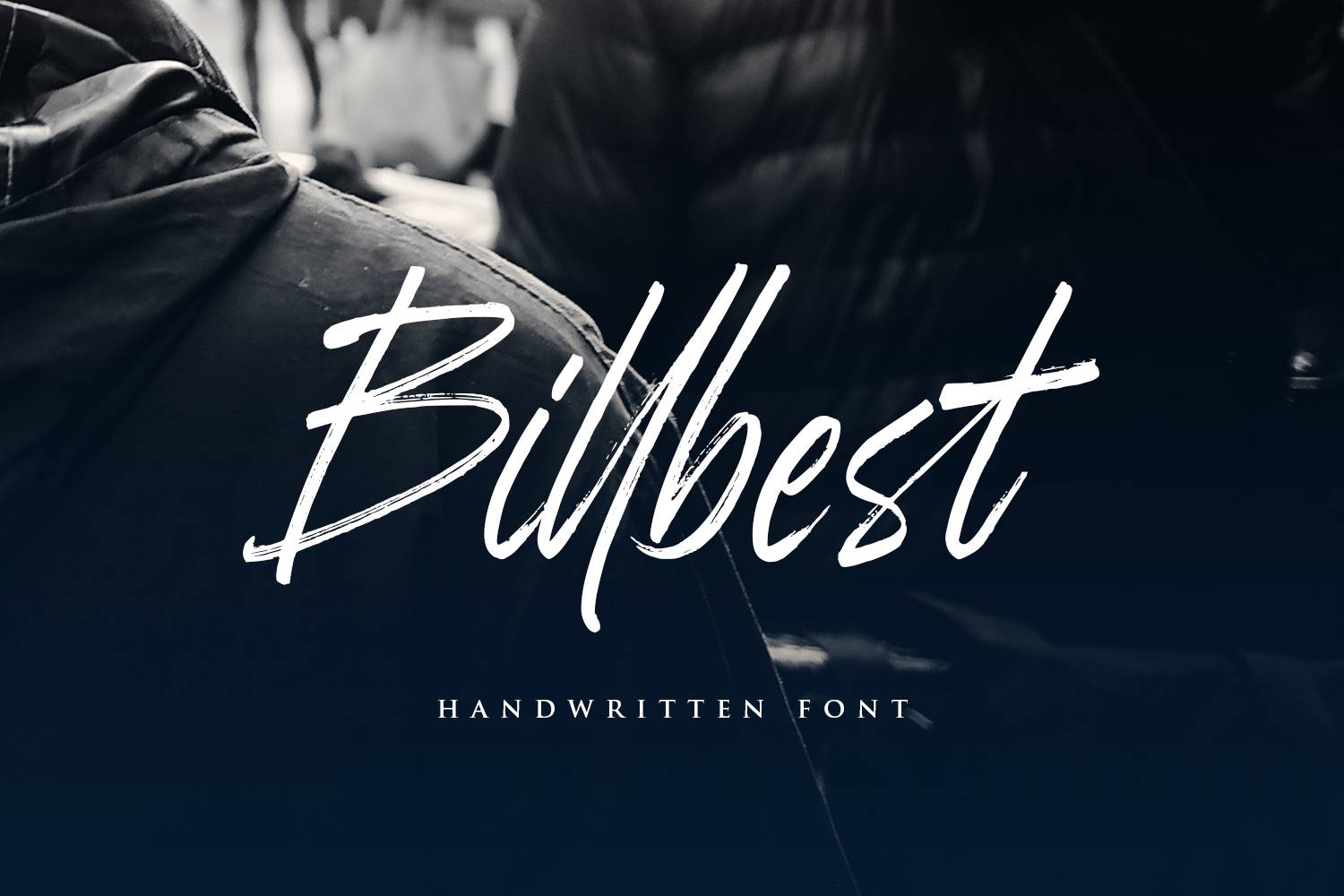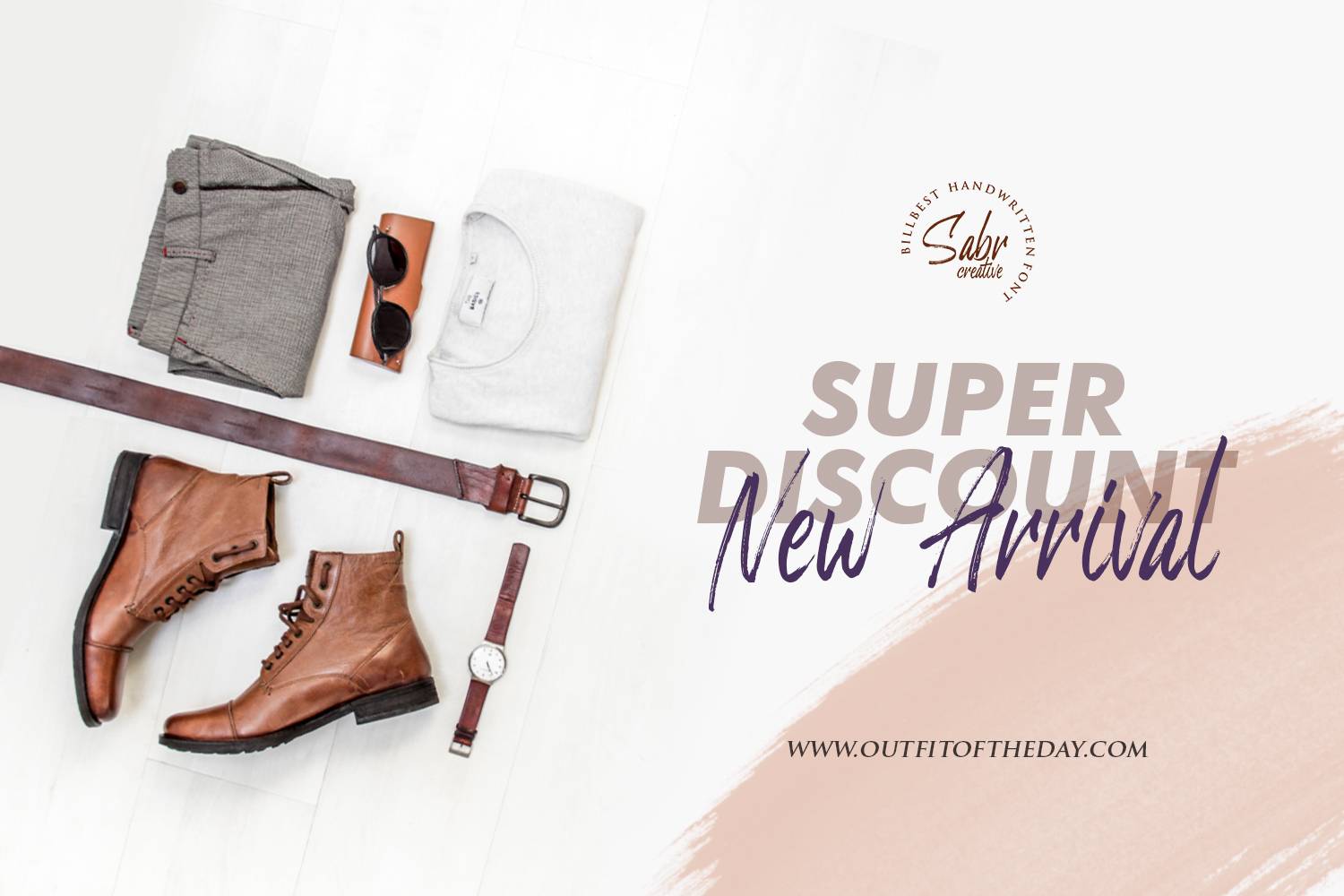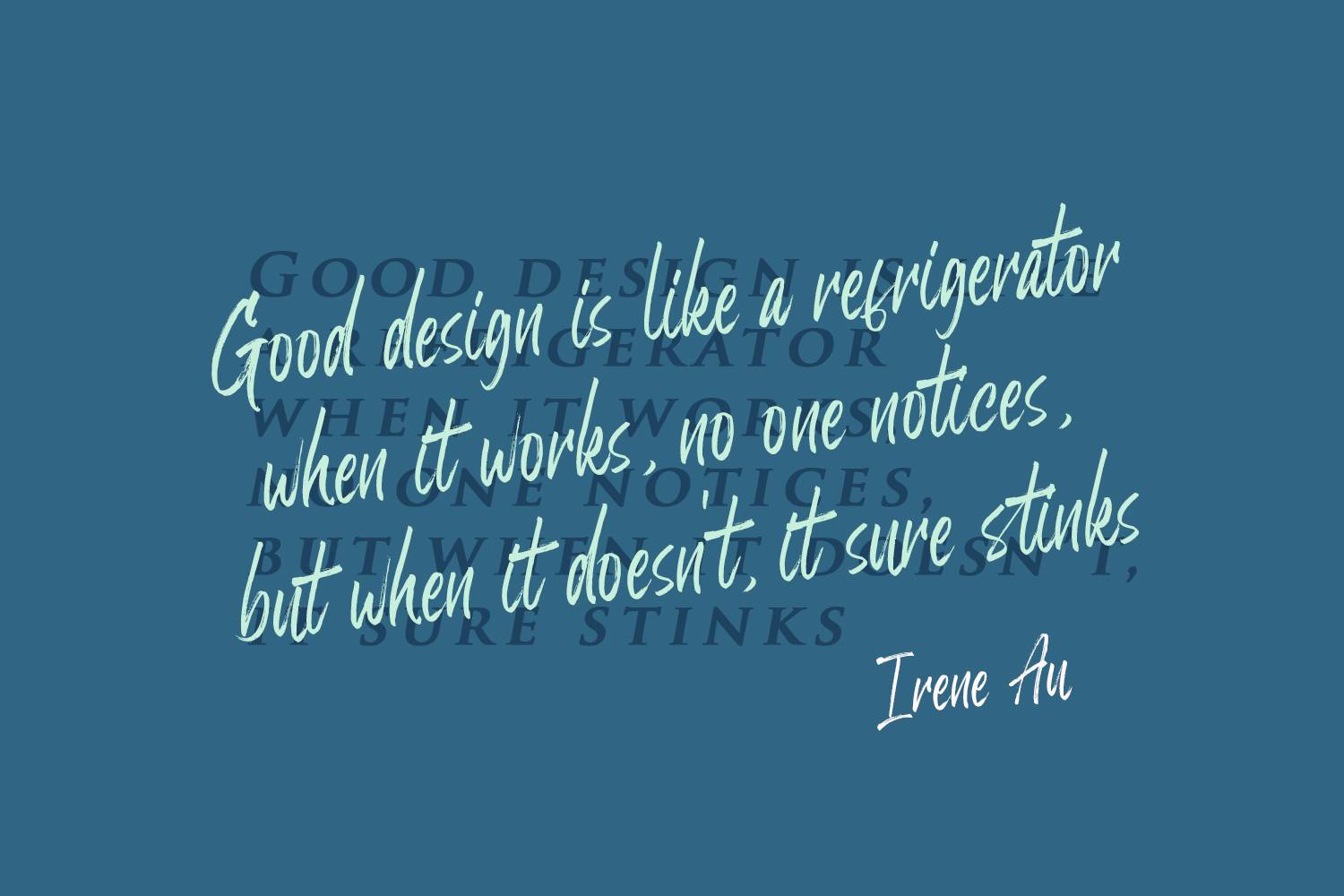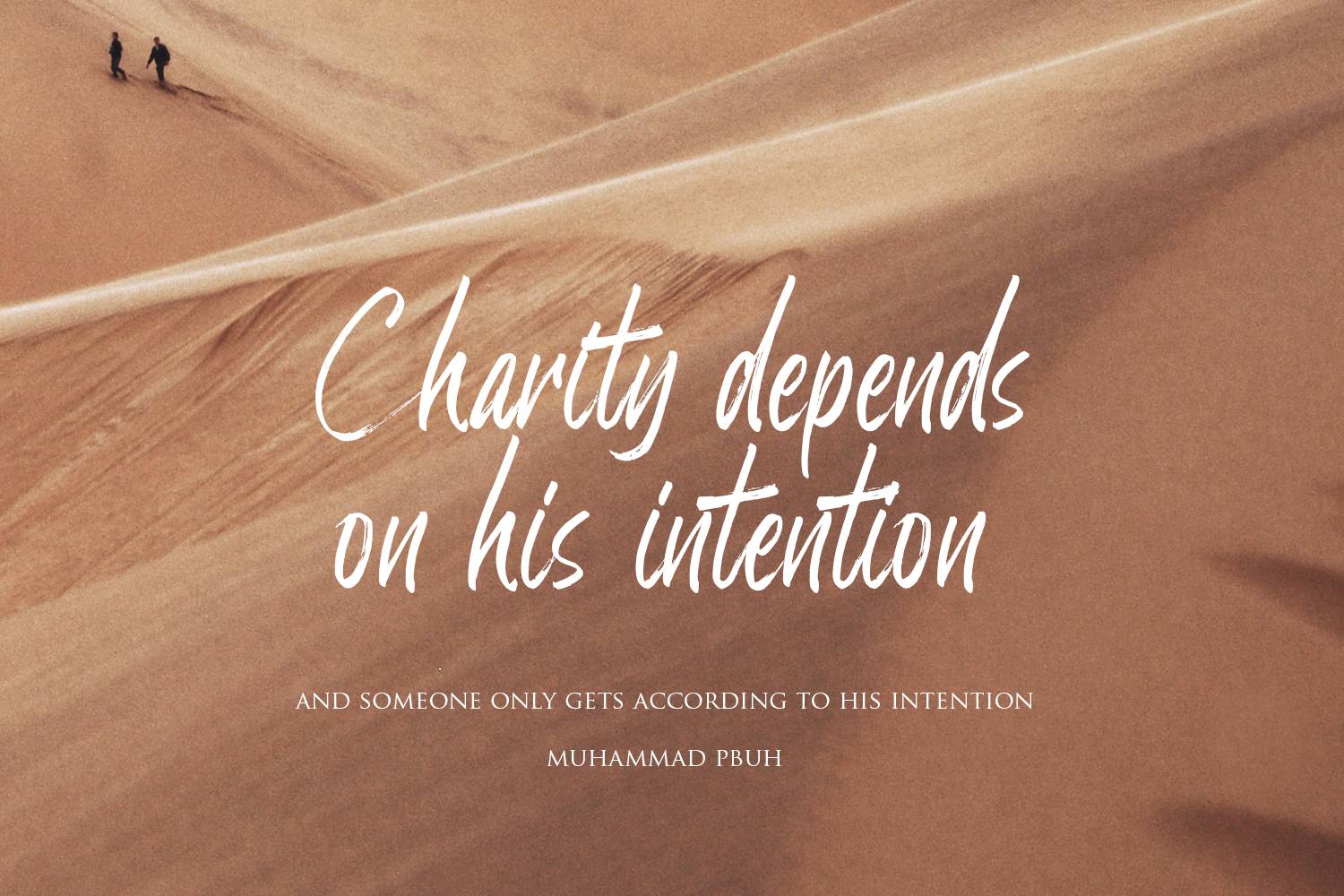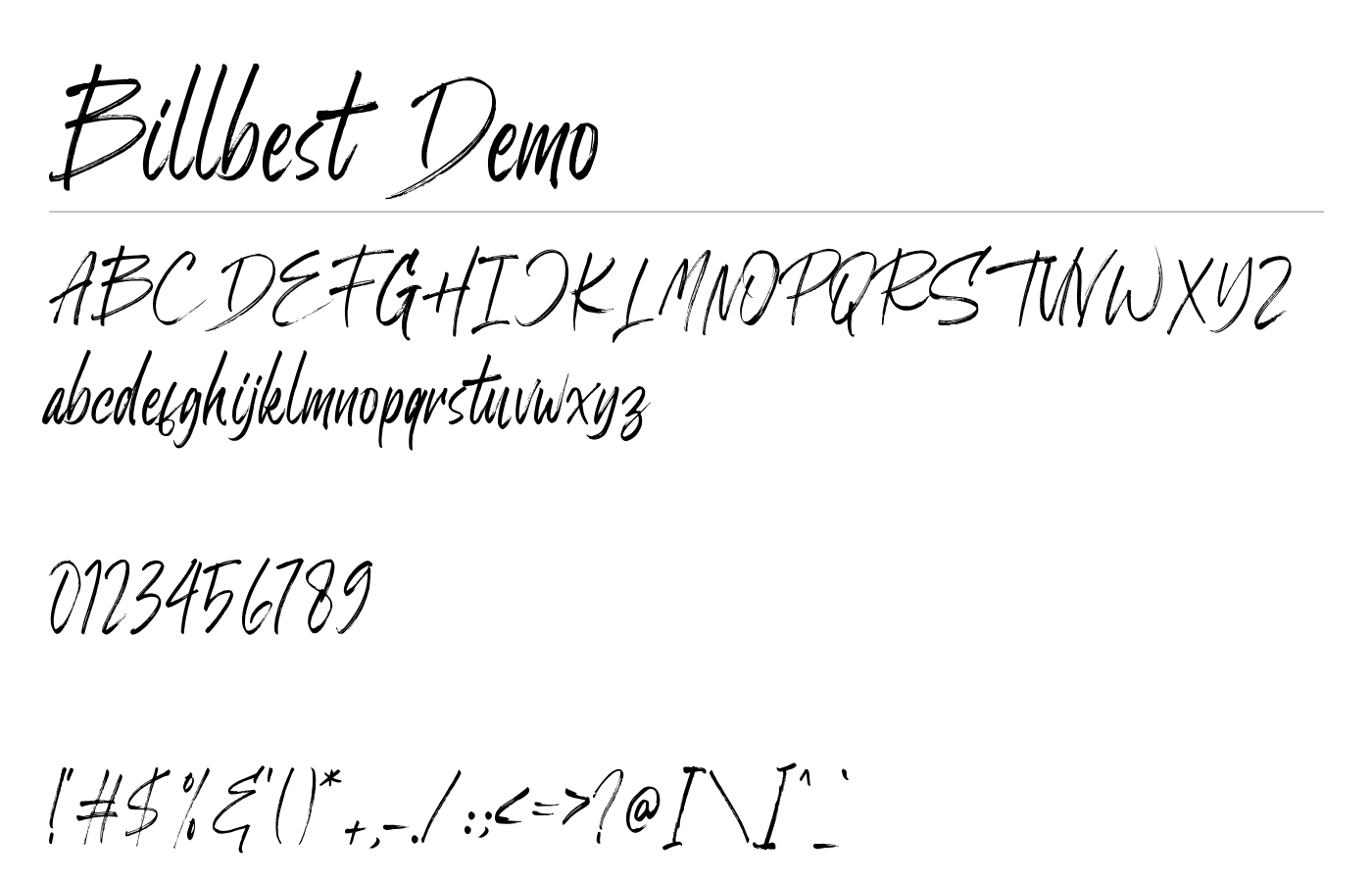
Billbest is a dynamic and expressive handwritten script font that features a casual, brush-like texture with uneven strokes, giving it an energetic and authentic feel. Its tall, slender letterforms and playful irregularities make it perfect for creative projects, branding, and headlines that seek a personal and lively touch. This font works well in designs that want to convey spontaneity and individuality, such as invitations, posters, and lifestyle branding.
Billbest Font
About Billbest Font